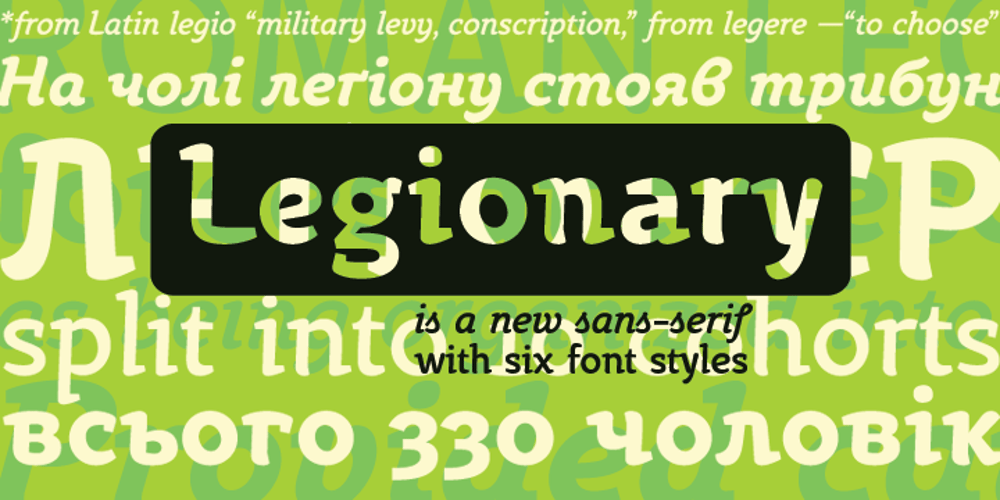
Legionary Font Family was designed by Cyrill Tkachev and published by Tkachev. Legionary contains 6 styles and family package options. Legionary is a new sans-serif with six font styles. It would look nice in magazines, on food packages, posters and flyers.